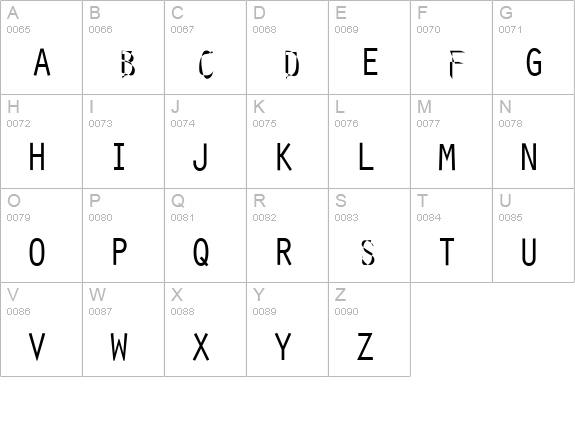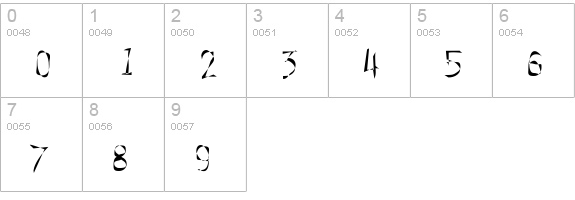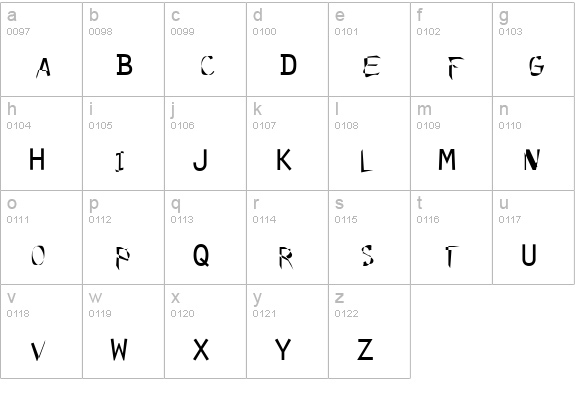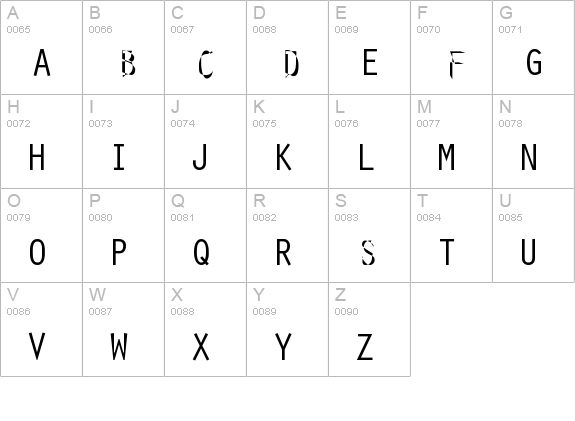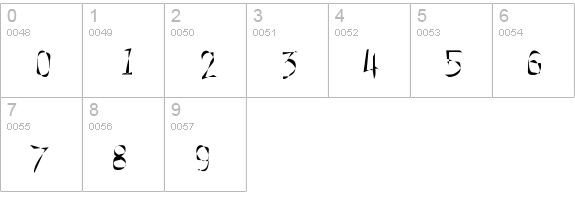
Insideout Font Details
Insideout font is a captivating and unique typeface that brings a touch of creativity and originality to any design project. With its distinctive and playful letterforms, this font is sure to grab attention and make a statement. The Insideout font is perfect for those who want to add a fun and whimsical element to their designs. Whether you are working on a poster, logo, or website, this font will bring a sense of charm and character to your work. One of the best things about Insideout font is that it is completely free to use. Yes, you heard that right! This amazing font is freely available to download at FontsMarket.com. So, you can unleash your creativity without any constraints or limitations. Insideout font is not only visually appealing but also highly versatile. It can be used for a wide range of design projects, from children's books to party invitations, from social media graphics to branding materials. Its quirky and unconventional nature will add a touch of personality to any project. So, why wait? Go ahead and download the Insideout font from FontsMarket.com for free and start creating stunning designs that will leave a lasting impression. Let your imagination run wild and explore the endless possibilities that this font has to offer. Get ready to stand out from the crowd and make a bold statement with Insideout font.